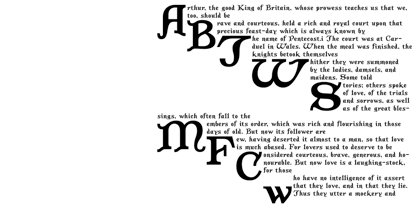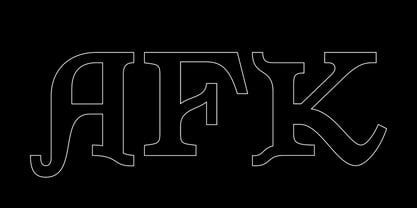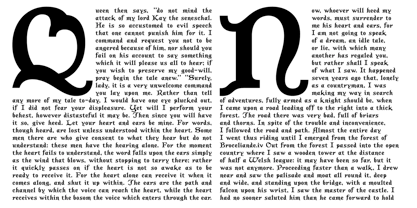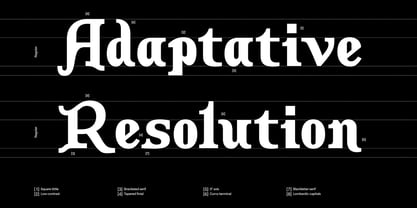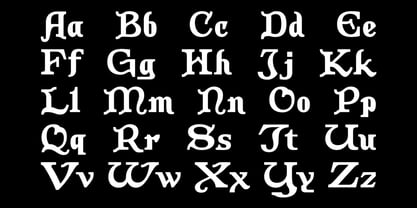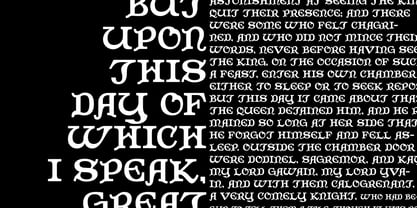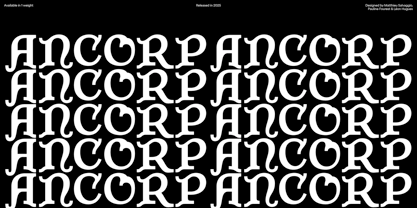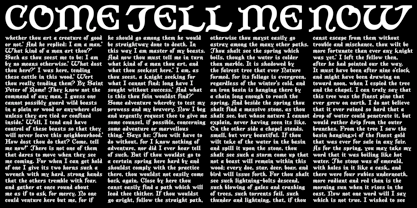
An Corp
The An Corp Font Family was designed by Léon Hugues, Matthieu Salvaggio and published by Blaze Type. An Corp contains 1 styles.
An Corp is a revival of the text font from the 1997 MMORPG Ultima Online. Originally drawn in low resolution, the project seeks a balance between fidelity to the source and reinterpretation, resulting in a hybrid Gothic typeface. Each glyph was redrawn over the pixel letters to preserve their proportions and rhythm. Features like low contrast, orthogonal terminations, and slab serifs are inherited from the original, making An Corp well-suited for small sizes. The mix of Lombardic capitals and more modern lowercases lends it a distinct anachronistic charm. Its name, An Corp—the “word of power” used for the Resurrection spell—is a fitting metaphor for this revival. Although much of the original Latin set was missing or poorly implemented, the in-game font still shows remarkable quality at its intended size (around 12px). Following some research and a conversation with Ultima Online’s former creative director Starr Long, the early font work was likely created by Micael Priest, who passed away in 2018. An Corp pays homage to his contribution and to the timeless, immersive world of Ultima Online.